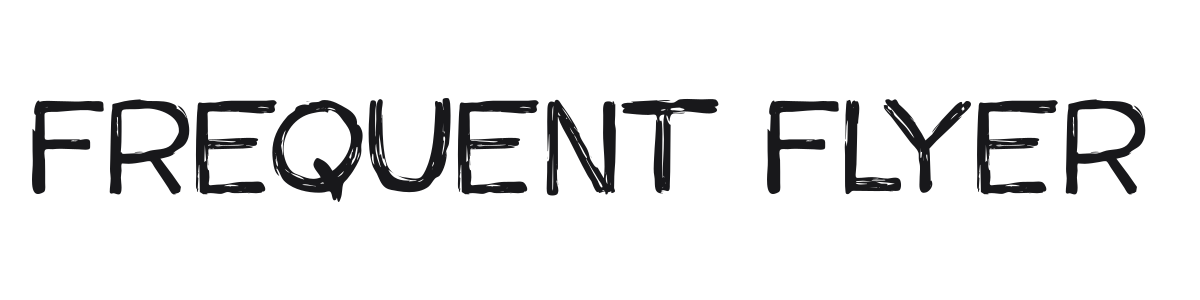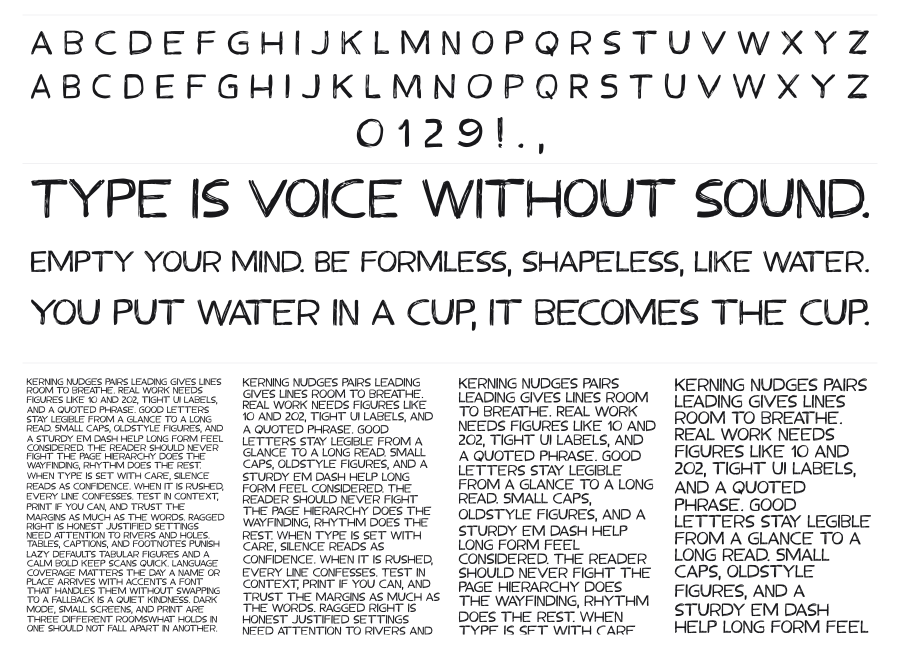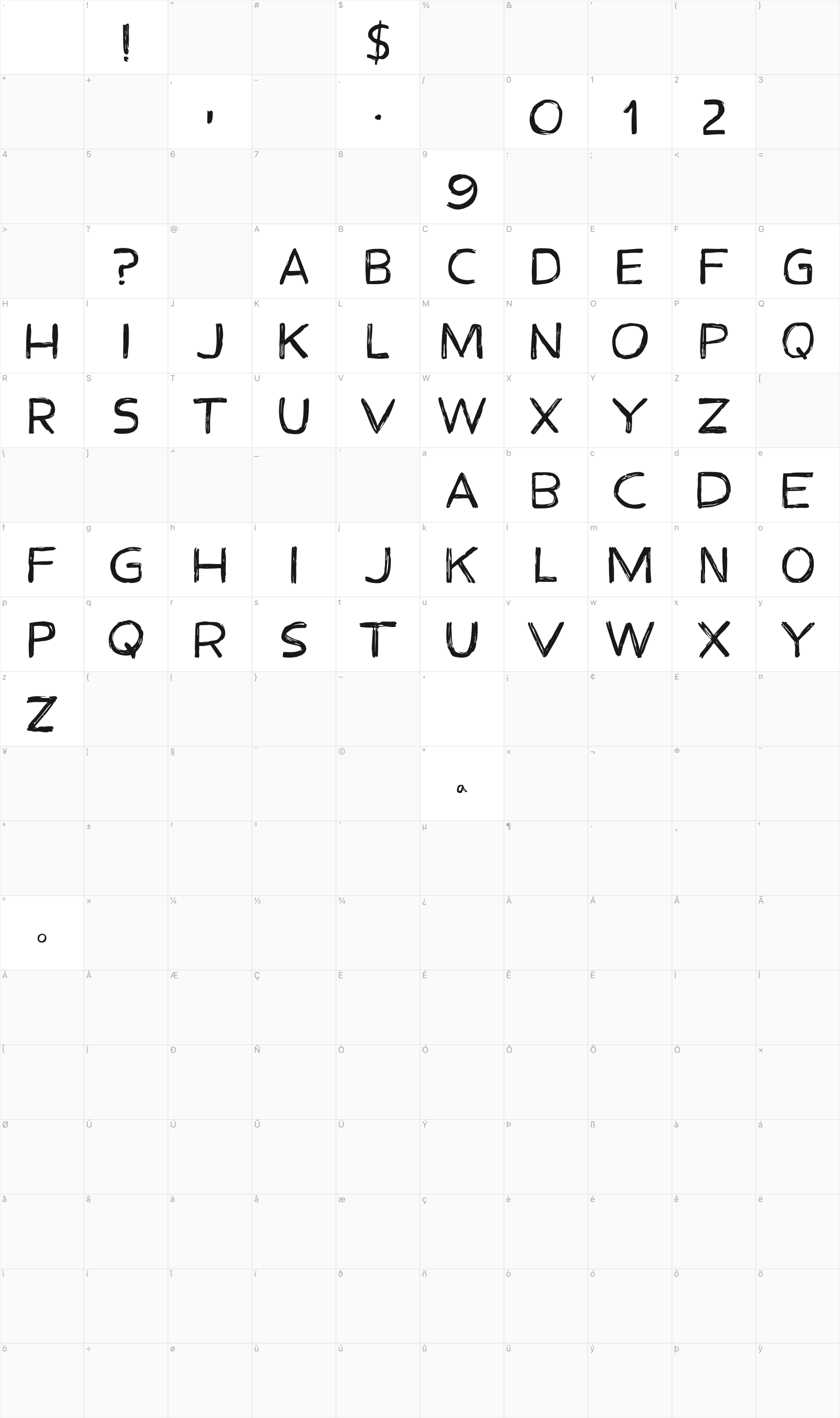
Frequent Flyer
Frequent Flyer is a casual brush-lettered font by David Kerkhoff with dry, bristle-dragged strokes and raw hand-drawn energy. The rough texture and irregular edges give it an authentic, spontaneous feel that suits brands and headlines that want to look genuinely handmade. It has a confident, loose rhythm without tipping into grunge.